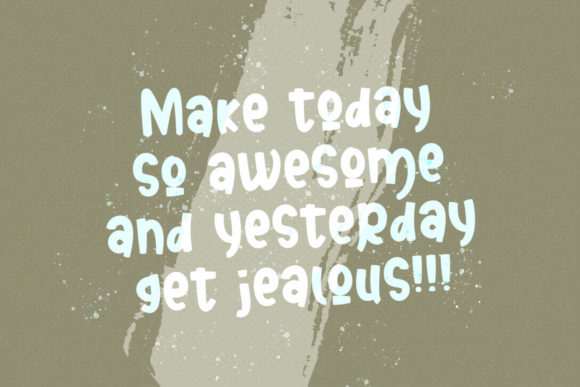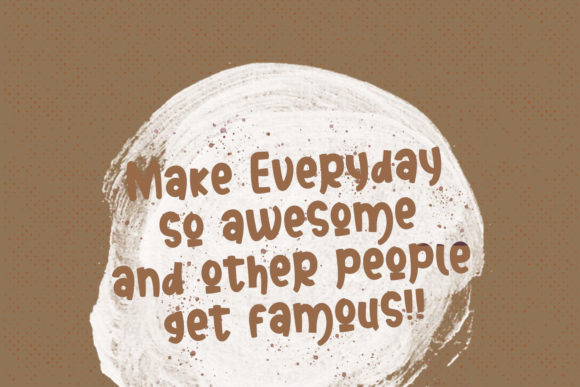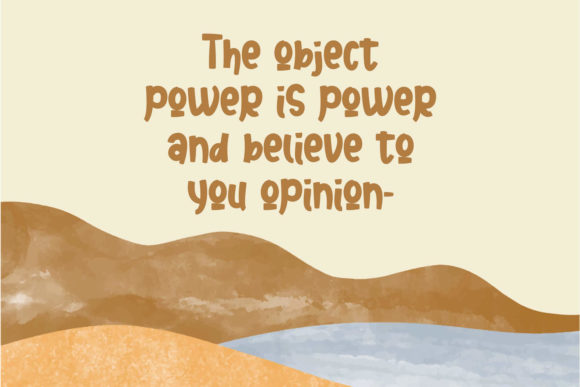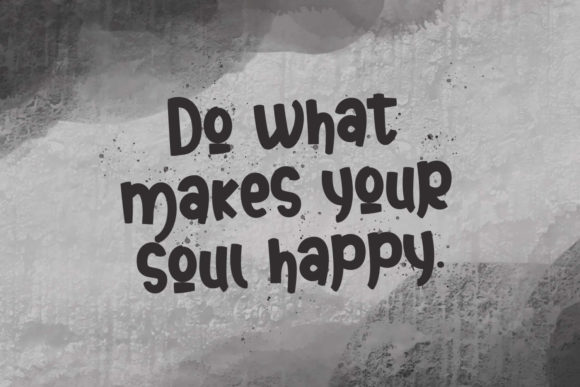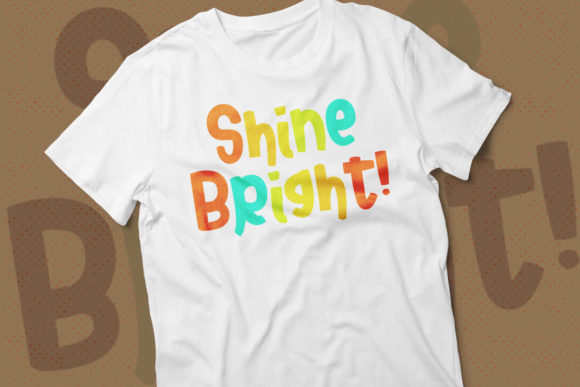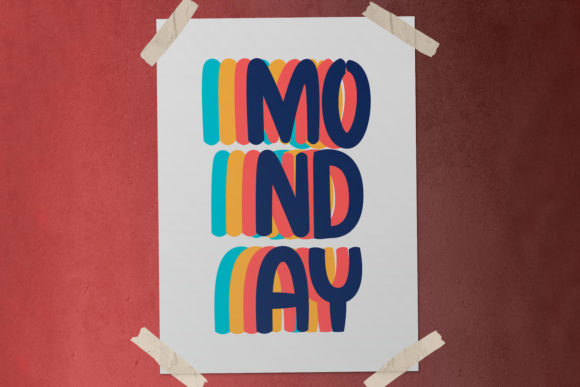
Introduction to Senoya Bright Font
Senoya Bright is a bold and fresh display font.
Get creative with its childlike playfulness, and use it to brighten up any kids and school project .
Key Features of Senoya Bright Font